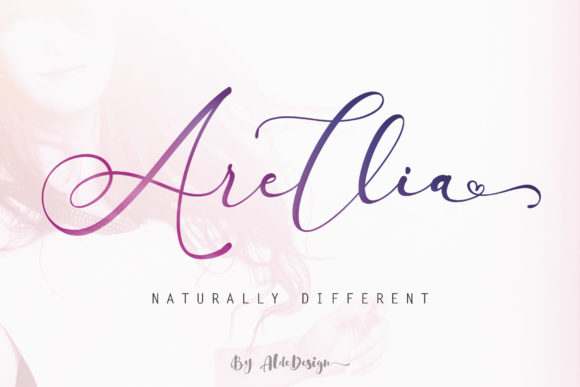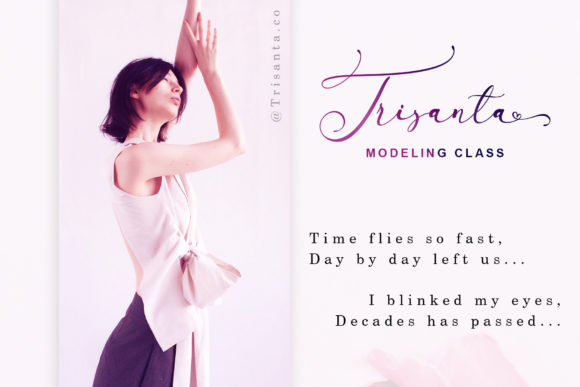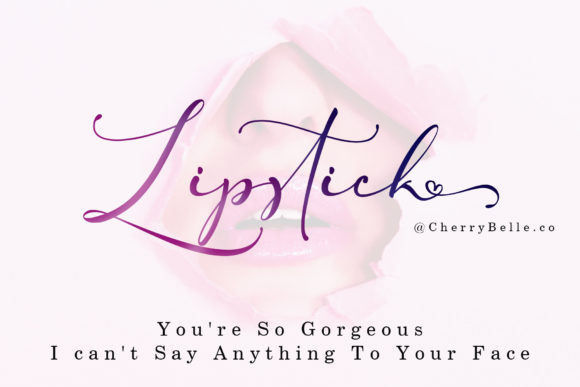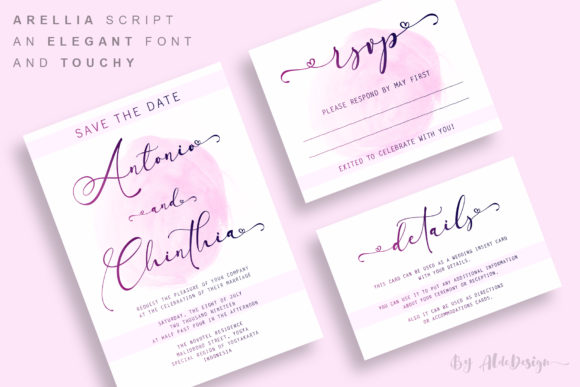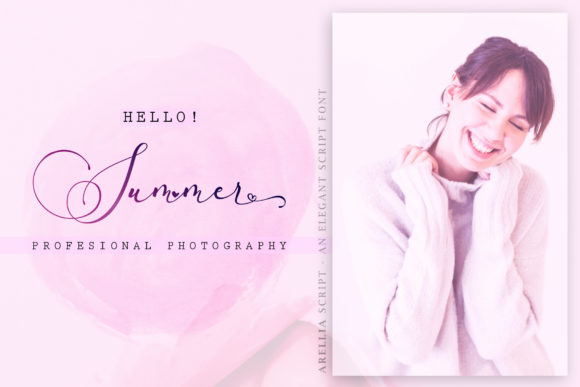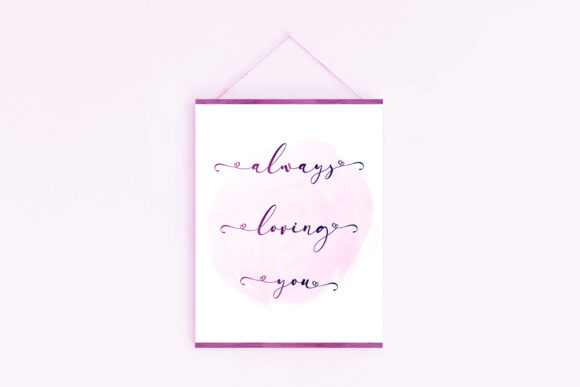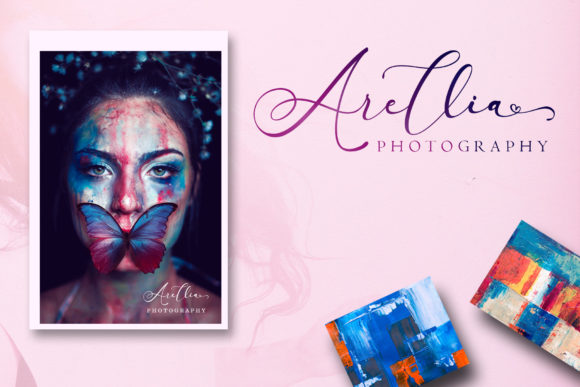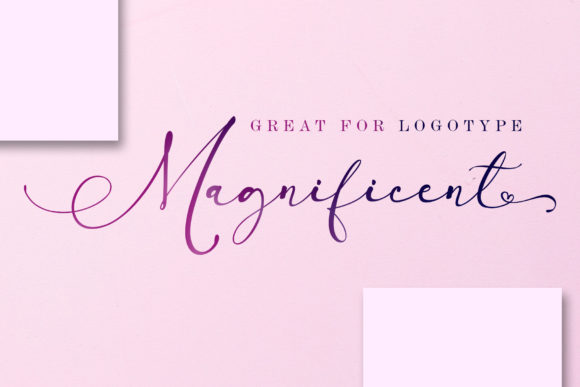
Arellia Font
About Arellia Font
Arellia is a beautiful and light handwritten font with a unique feel. It will add a personal spark to any design project!